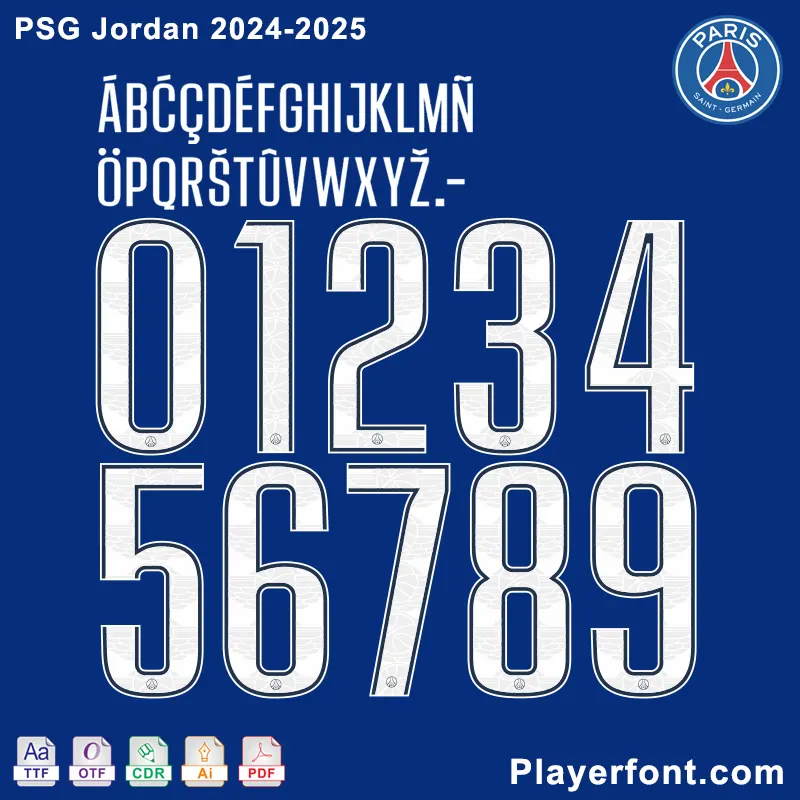
PSG Jordan 2024-2025 Font Download: a sleek and modern typeface inspired by the dynamic collaboration between Paris Saint-Germain (PSG) and Jordan Brand.
The PSG Jordan 2024-2025 Font is a must-have for designers and creatives looking to capture the essence of sports, luxury, and urban culture. Inspired by the iconic partnership between Paris Saint-Germain and Jordan Brand, this bold and modern typeface is designed to make a statement.